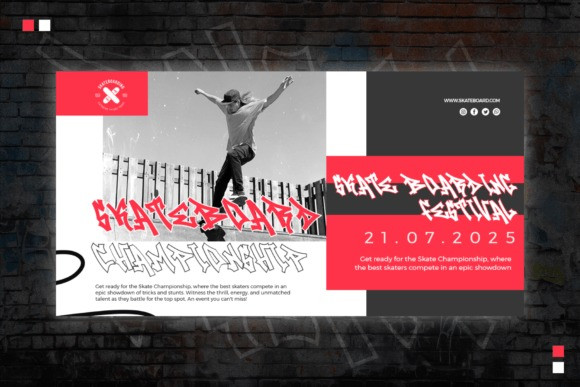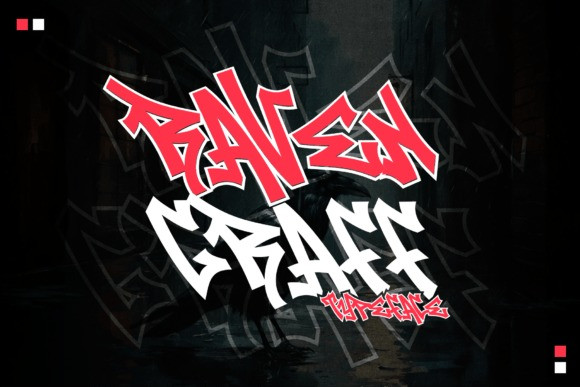
Raven Graff Font
Raven Graff Font – a dynamic monoline graffiti-style font. Featuring two unique character styles in regular and outline, its razor-sharp edges paint each character with a realistic, hand-sketched feel, mirroring the authenticity of raw street art to a tee. A match made in heaven for city-centric designs, Raven Graff infuses a daring rebellion into streetwear branding, social media graphics, and beyond. Propelling any creative project to new heights, the font exudes a distinctive, lively energy that is hard to forget. From captivating posters and striking logos to innovative custom apparel, its potent, graffiti-tinged esthetic speaks volumes and carves a memorable mark. Experience Raven Graff, the emblem of street-style typography.